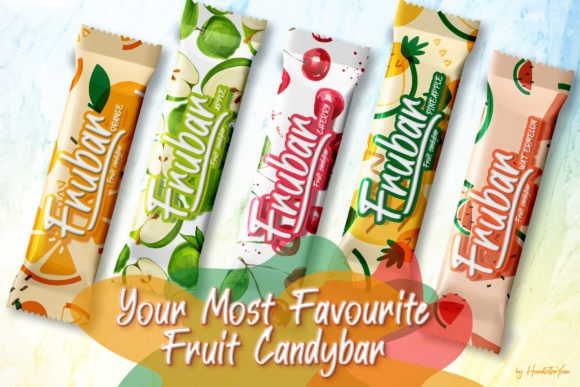
Star Track Script Font
Star Track Script Font is a handwritten style script. A beautiful modern handwritten typeface. This font have smooth rounded edges so the font gives a feel of clean, unique, fresh, and fun. Star Track Font is a one-of-a-kind display font. Star Track Script is suitable for both simple or sophisticated designs, making it an extremely versatile must-have. Very suitable to be used as headline, instagram post and stories, logos, magazines, books, greeting / wedding cards, packaging, fashion, make up, stationery, novels, labels or any type of advertising purpose.